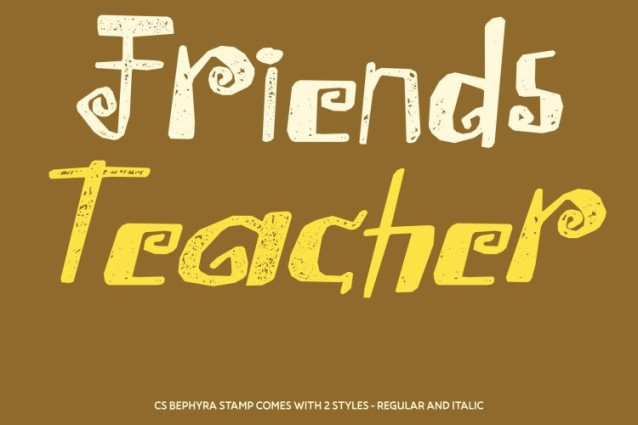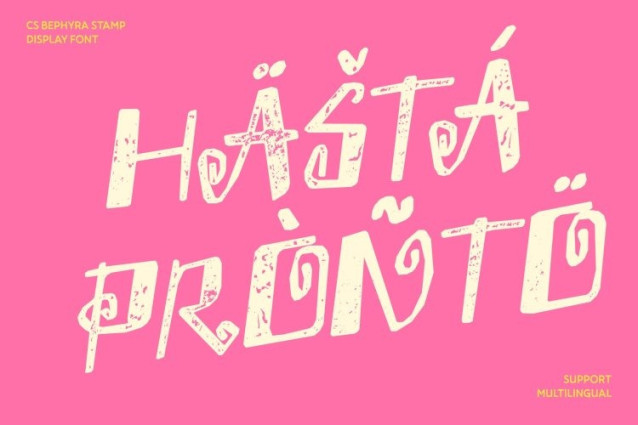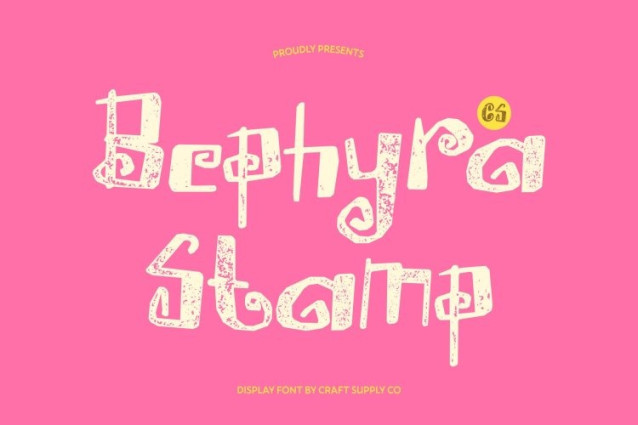
CS Bephyra Stamp Font This is a whimsical storybook sans serif font designed to spark imagination and wonder, now elevated with a charming stamp effect. Its curved letterforms and playful construction are enriched with subtle ink textures and organic imperfections, giving the font a warm, handcrafted presence reminiscent of classic illustrated storybooks and old fairytale prints.
Soft, Rounded Forms with Friendly Vintage Expression
The softly rounded sans serif shapes maintain a gentle, childlike innocence while the stamped texture adds depth and character. Slightly distressed edges and uneven ink coverage introduce an authentic, tactile quality, making each letter feel printed by hand rather than digitally perfect. This balance preserves readability while enhancing emotional warmth and nostalgia.
Decorative Fantasy Details with Artistic Texture
Delicate decorative touches are enhanced by the stamp effect, creating a magical blend of fantasy and vintage artistry. The textured surface adds visual richness, making the letters feel alive like they belong to an enchanted page pulled from a timeless storybook. Every word carries a sense of movement, imagination, and handcrafted storytelling.
Perfect for Children’s Books, Fantasy Themes, and Playful Vintage Branding
Ideal for children’s book covers, fairy-tale posters, magical packaging, and imaginative branding, shines in designs that celebrate wonder and creativity. The vintage stamp texture reinforces a nostalgic, artistic mood, making it perfect for projects that want to feel whimsical, heartfelt, and full of story-driven charm.